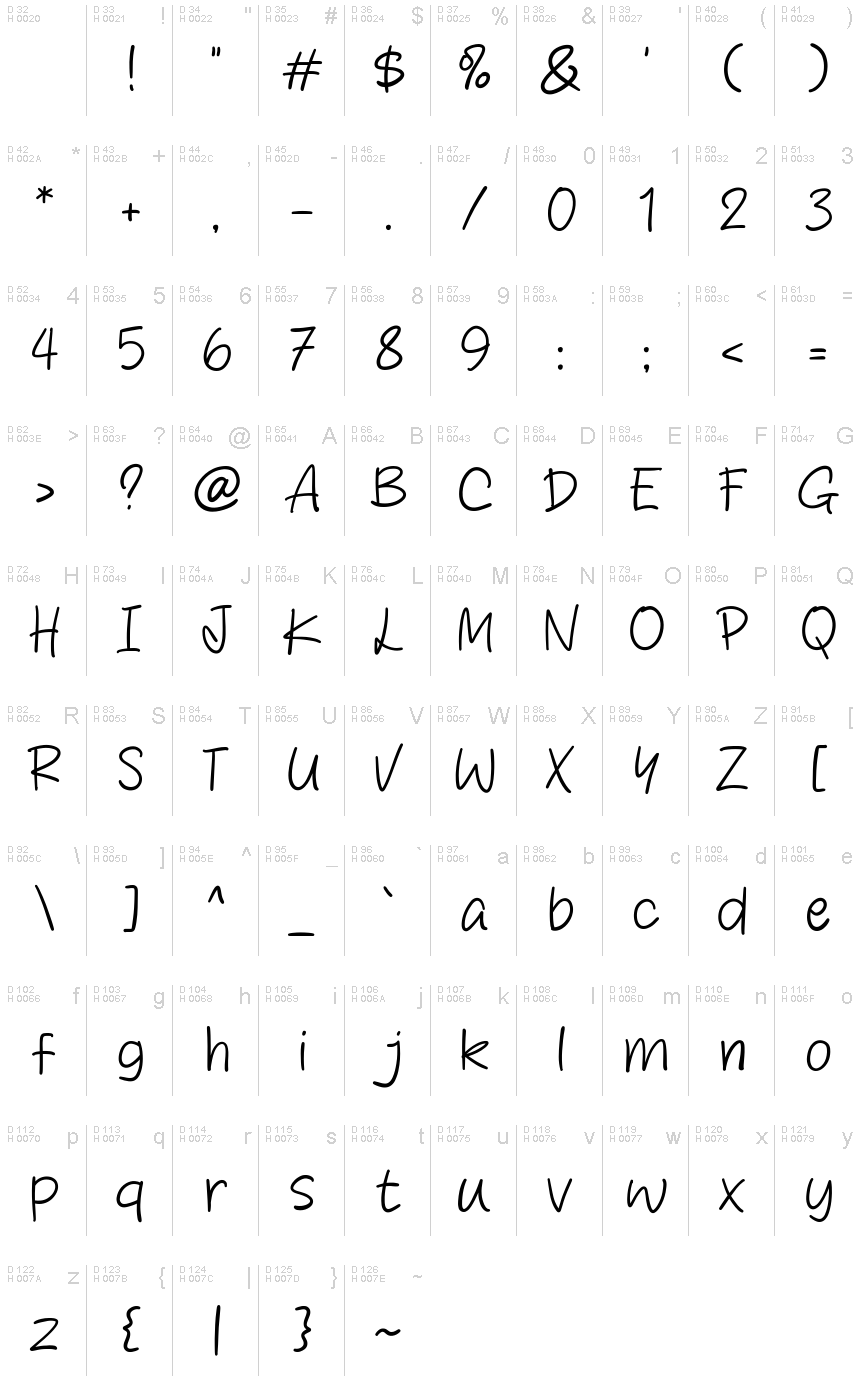
More Ideas
More Ideas, designed by Khurasan, is a handwritten font that carries the charm of fluidity and personal touch. Its delicate strokes suggest a light-hearted and approachable aesthetic, making it an excellent choice for designs that require a sense of intimacy and individuality. The characters dance with an almost whimsical air, giving off an aura of creativity and spontaneity.
This font finds its strength in settings where the human touch needs to be underscored—think greeting cards, invitations, personal blogs, or any platform where personality is paramount. Its inviting appearance also makes it well-suited for inspirational quotes or editorial headlines that aim to connect with the reader on a more personal level. With More Ideas, your message won't just be read; it will be felt.